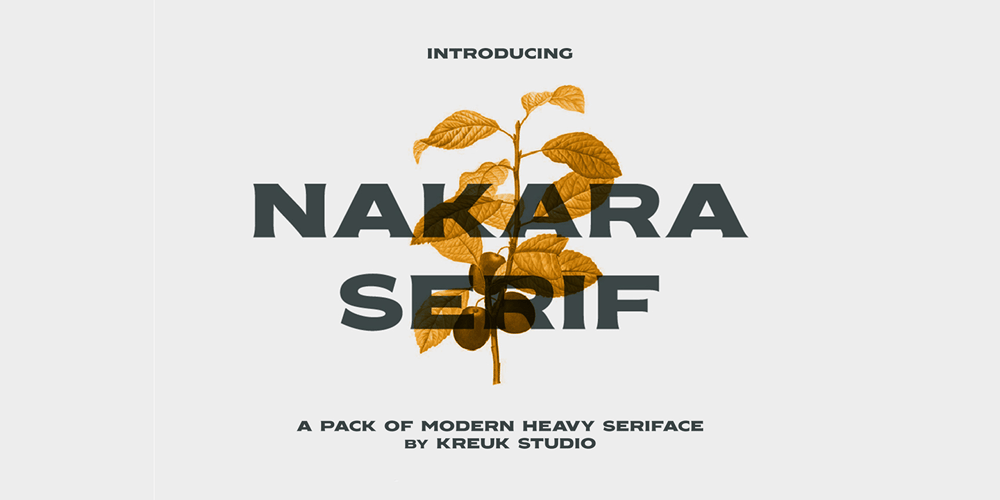
Nakara
Nakara font
Nakara Font Family was designed by Rendra Diardjo and published by Kreuk Type Foundry. Nakara contains 3 styles and family package options. Nakara Serif is All-Caps Modern Serif Typeface with solid heavy impressions.Available in 3 styles: Regular Outline Rough Nakara Serif ideally suited for headline title, badges lockup, logo, branding, posters etc. Supports Multi-language, Stylistic Ligatures & PUA encoded for alternates styles.